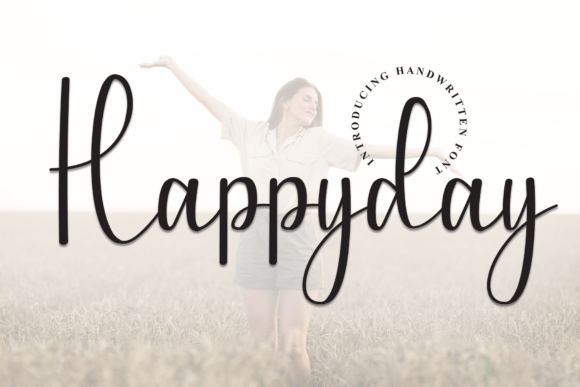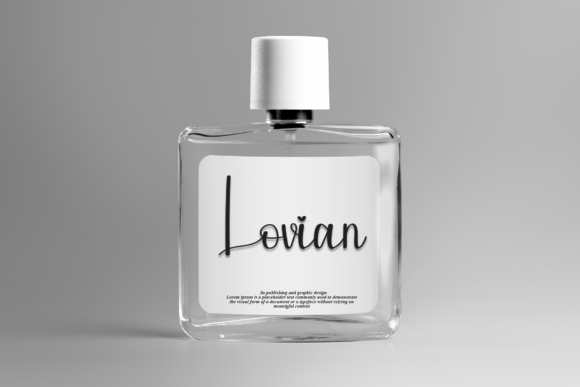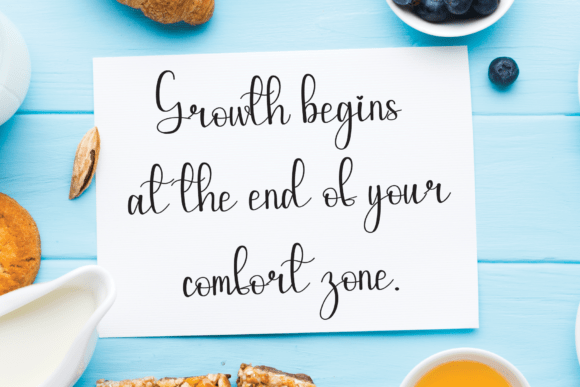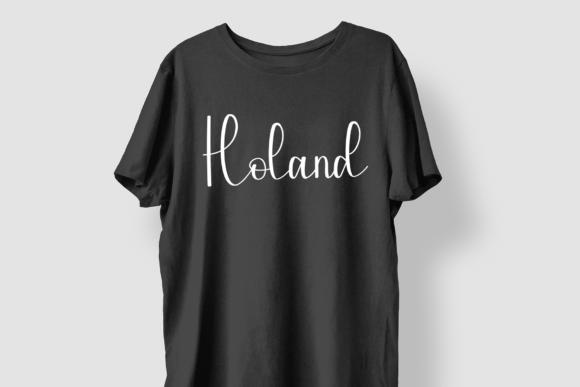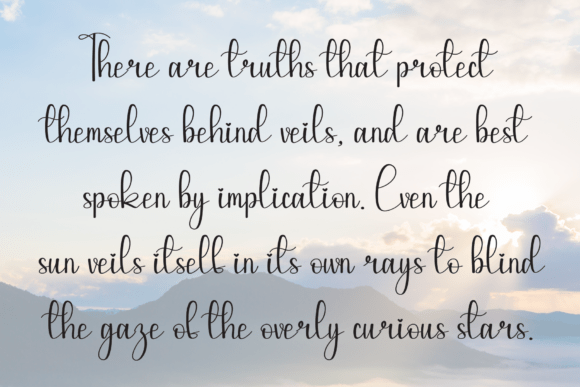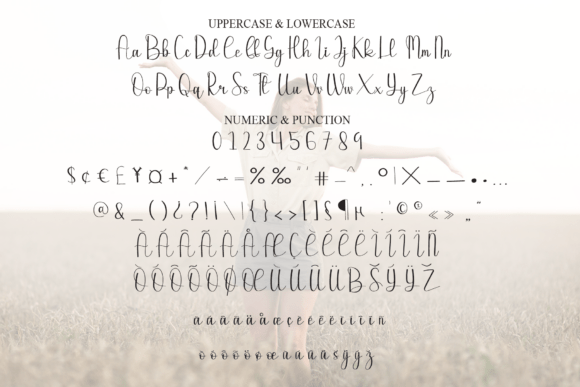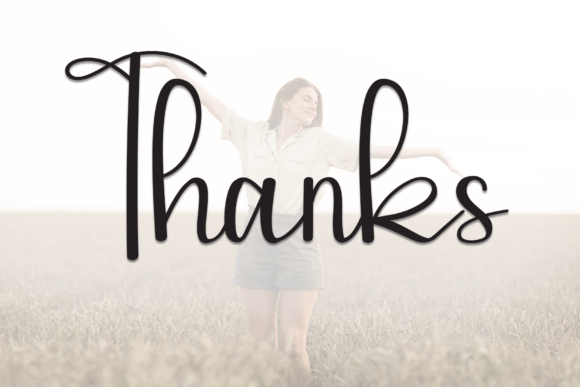
Unlocking the Magic of Handwritten Charm
Have you ever been browsing through a beautifully designed invitation or social media post, and suddenly felt the urge to pick up a pen and paper to create something just as lovely? That’s the magic of handwritten charm, and it’s exactly what the Happyday Font is all about.
This stylish handwritten script font is designed to capture elegance and playfulness in every stroke, making it the perfect addition to any project. Whether you’re designing invitations, branding materials, or social media graphics, the Happyday Font adds a personal and charming touch that’s sure to make your work stand out.
For designers, the Happyday Font is a valuable asset that brings warmth, sophistication, and creativity to any project. Its flowing curves and natural rhythm make it easy to use and versatile, allowing you to experiment with different styles and looks.
Key Features of Happyday Font
- Unique Characteristics: The font features a unique blend of modern and playful elements, with subtle rounded edges and a friendly feel that makes it perfect for branding and advertising materials.
Happyday Font Review
When I first laid eyes on the Happyday Font, I couldn’t help but feel a sense of excitement. Its playful and cheerful vibe immediately caught my attention. ✨ The font is perfect for designs that need a touch of whimsy and fun, making it ideal for projects like children’s books, party invitations, or social media graphics.
One of the things that works particularly well with Happyday Font is its versatility. ✨ It comes in multiple weights and styles, allowing designers to create a range of effects from bold and playful to soft and subtle. Additionally, the font is highly legible, making it easy to read even in smaller sizes.
What Doesn’t Work So Well
- ⚠️ The font may not be suitable for professional or formal designs, as its playful nature may come across as unprofessional.
- ⚠️ In certain contexts, the font’s exaggerated characteristics may be overwhelming or difficult to read.
- ⚠️ Some users may find the font’s irregularities and imperfections distracting.
Overall, the Happyday Font is a great choice for designers who want to add a touch of personality and fun to their projects. While it may not be suitable for every design, its versatility and playfulness make it a valuable addition to any font collection.
Tips for Getting the Most Out of Happyday Font
Use the Happyday Font for designs that require a playful and cheerful vibe.
Apply the font in bold or italic styles to add emphasis to your text.
Combine the Happyday Font with other playful fonts for a unique design.
The Happyday Font is ideal for:
Designing children’s products or toys.
Creating social media graphics or advertisements.
Developing branding materials for fun and playful businesses.
Alternatives to Happyday Font
Great Vibes Font is a modern, elegant script font suitable for various design projects, including branding, advertising, and packaging. It is ideal for creating a friendly, approachable atmosphere and can be used for both digital and print media.
Compared to Happyday Font, Great Vibes Font has a more refined and sophisticated look, making it a better choice for high-end or luxury brands. Happyday Font is more playful and casual, while Great Vibes Font is more versatile and can be used in a wider range of applications.